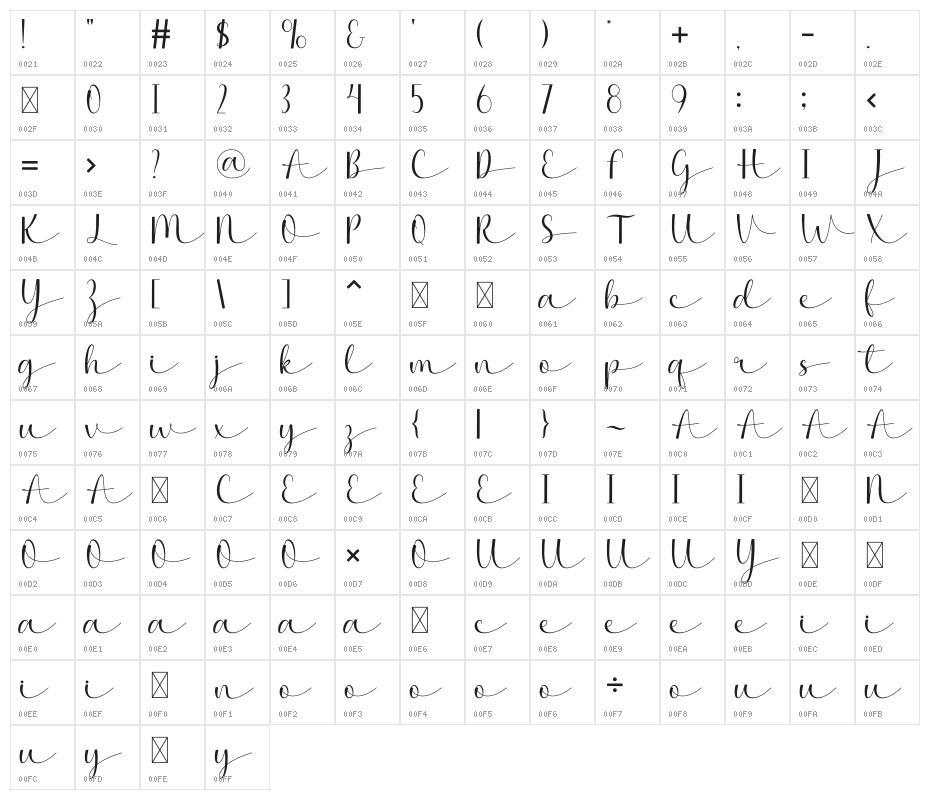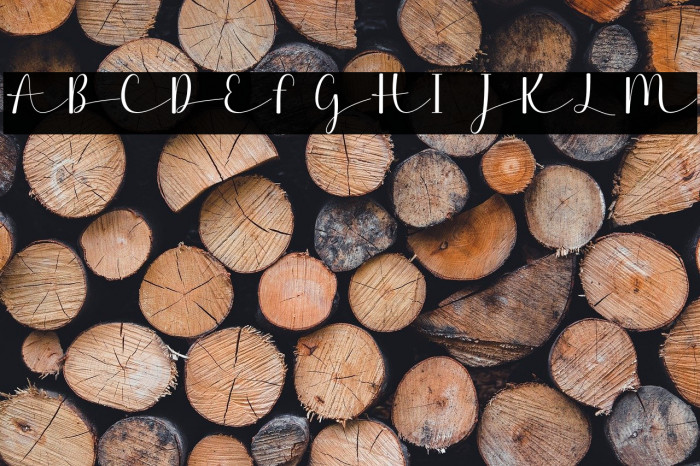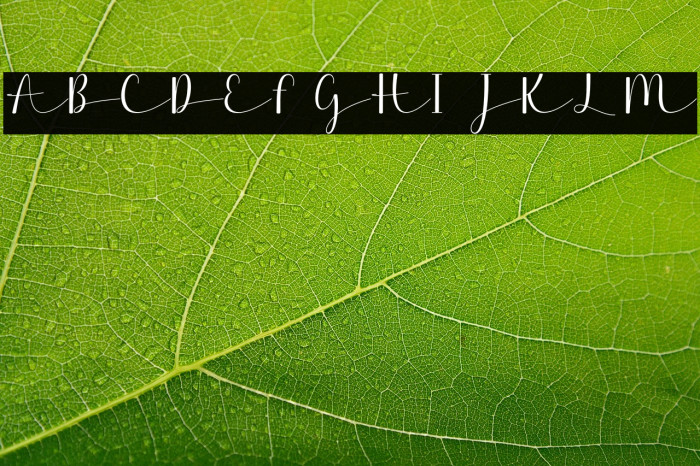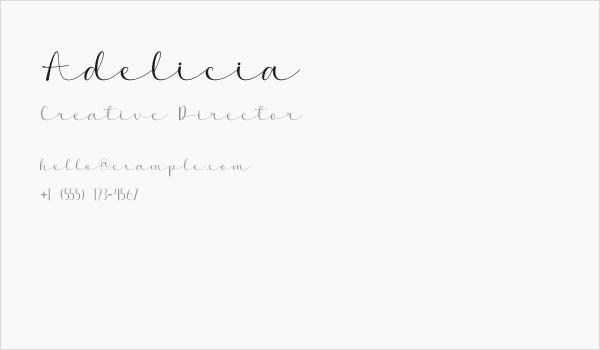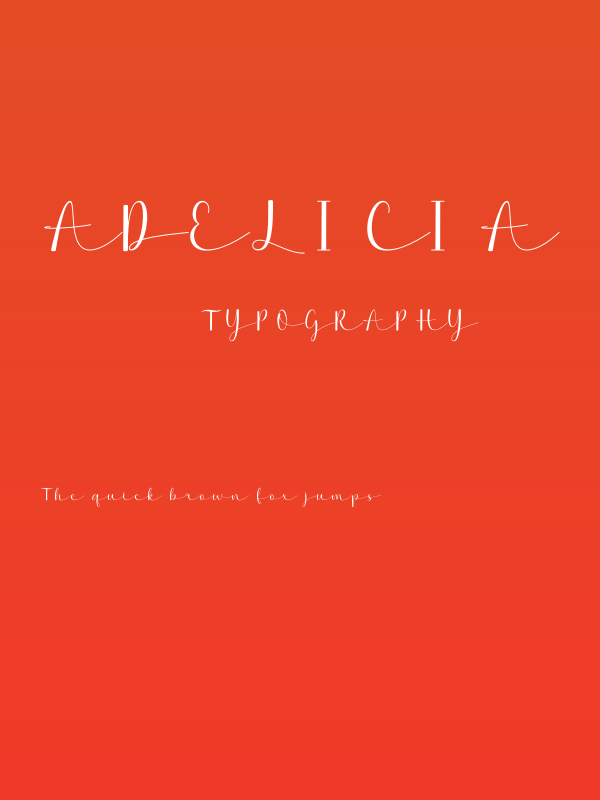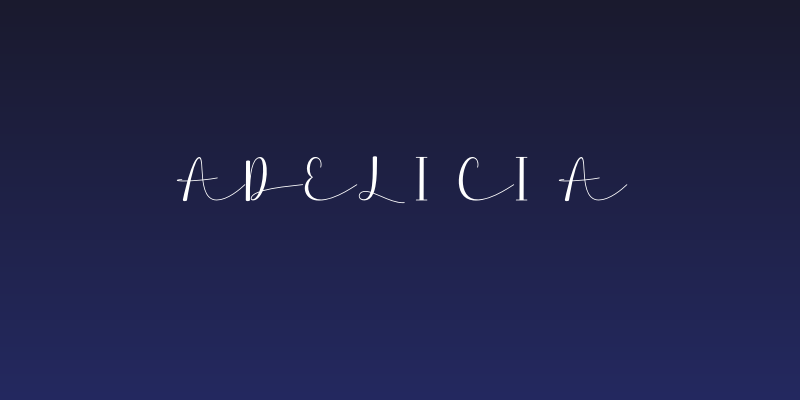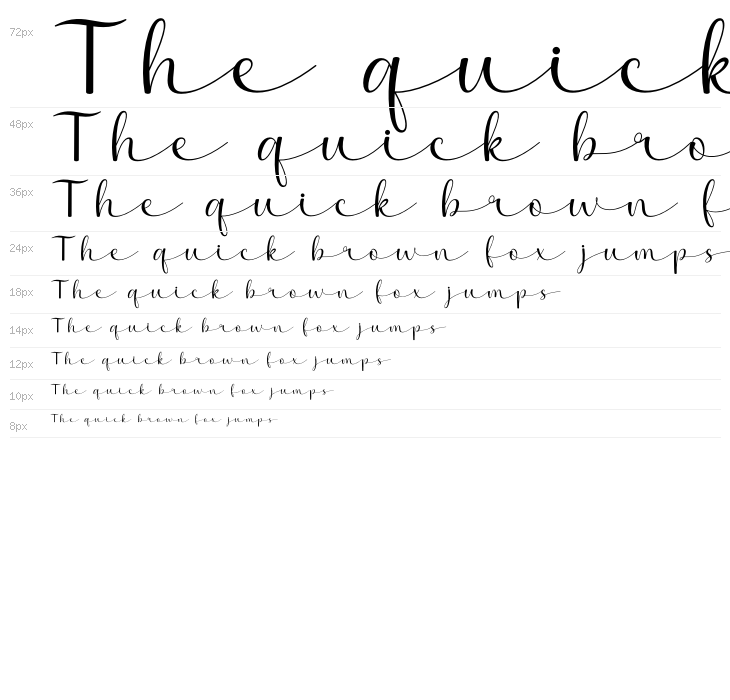
Adelicia Font
Adelicia Description
This font features an elegant and flowing script style, characterized by its smooth, cursive strokes and delicate loops. The uppercase letters are distinct with a graceful flair, while the lowercase letters maintain a consistent, flowing baseline. The numerals are bold and slightly elongated, adding a touch of sophistication. Special characters are uniquely styled, complementing the overall aesthetic. This font exudes a sense of elegance and charm, making it suitable for a variety of creative projects.
Overall StyleElegant, Decorative
Use CaseLogos, Invitations, Decorative text
Proposed ProjectsIdeal for wedding invitations, greeting cards, branding, and elegant logo designs.